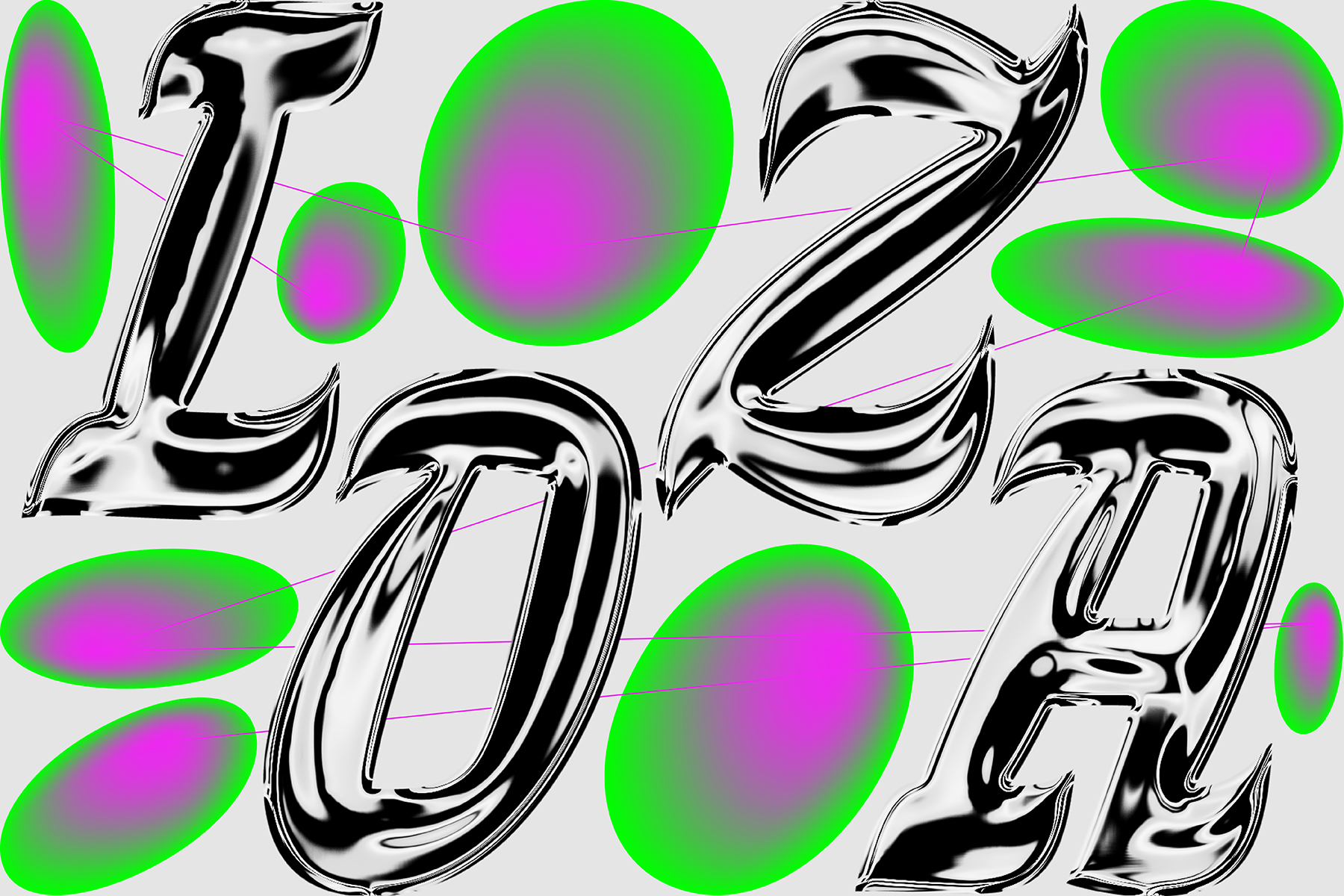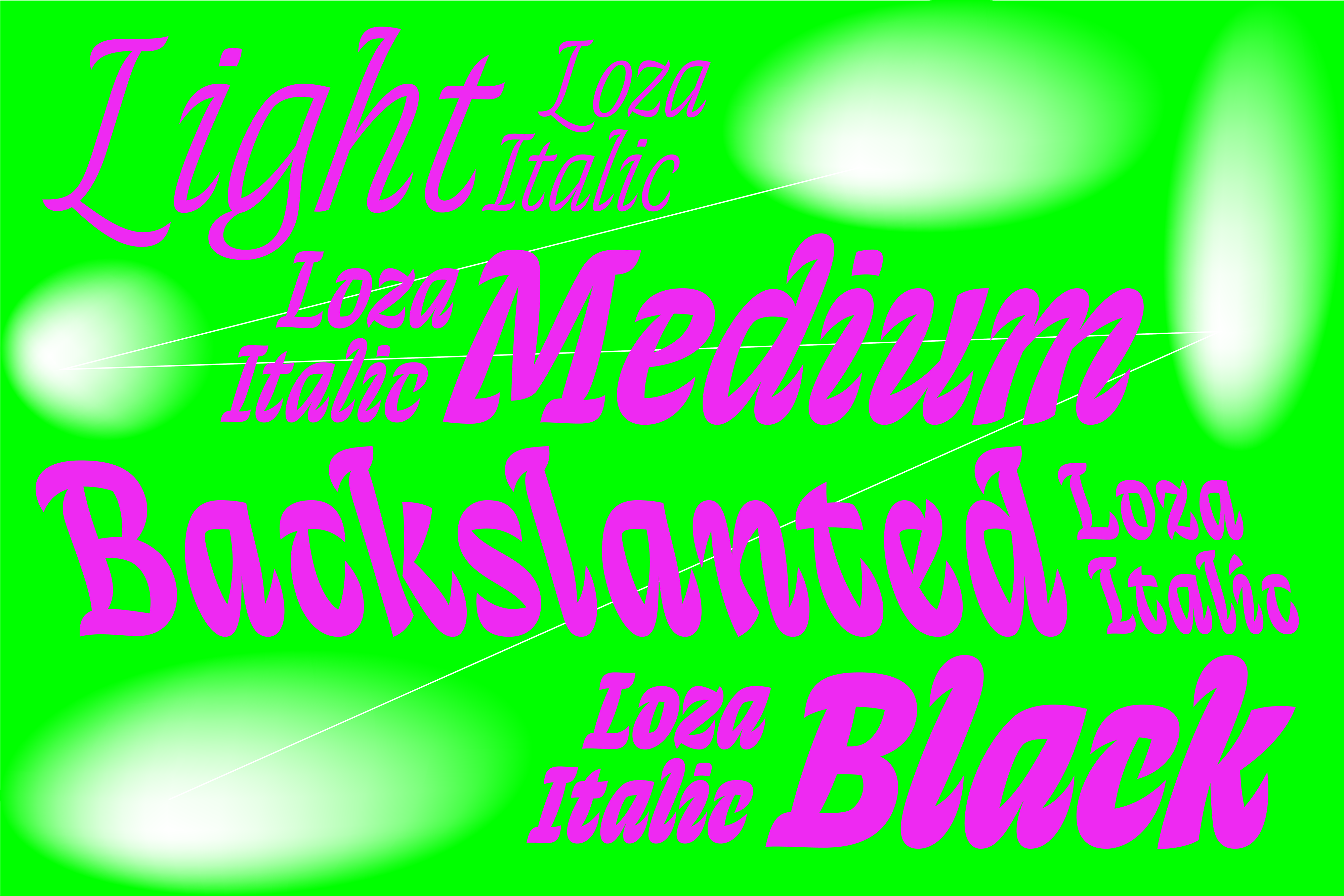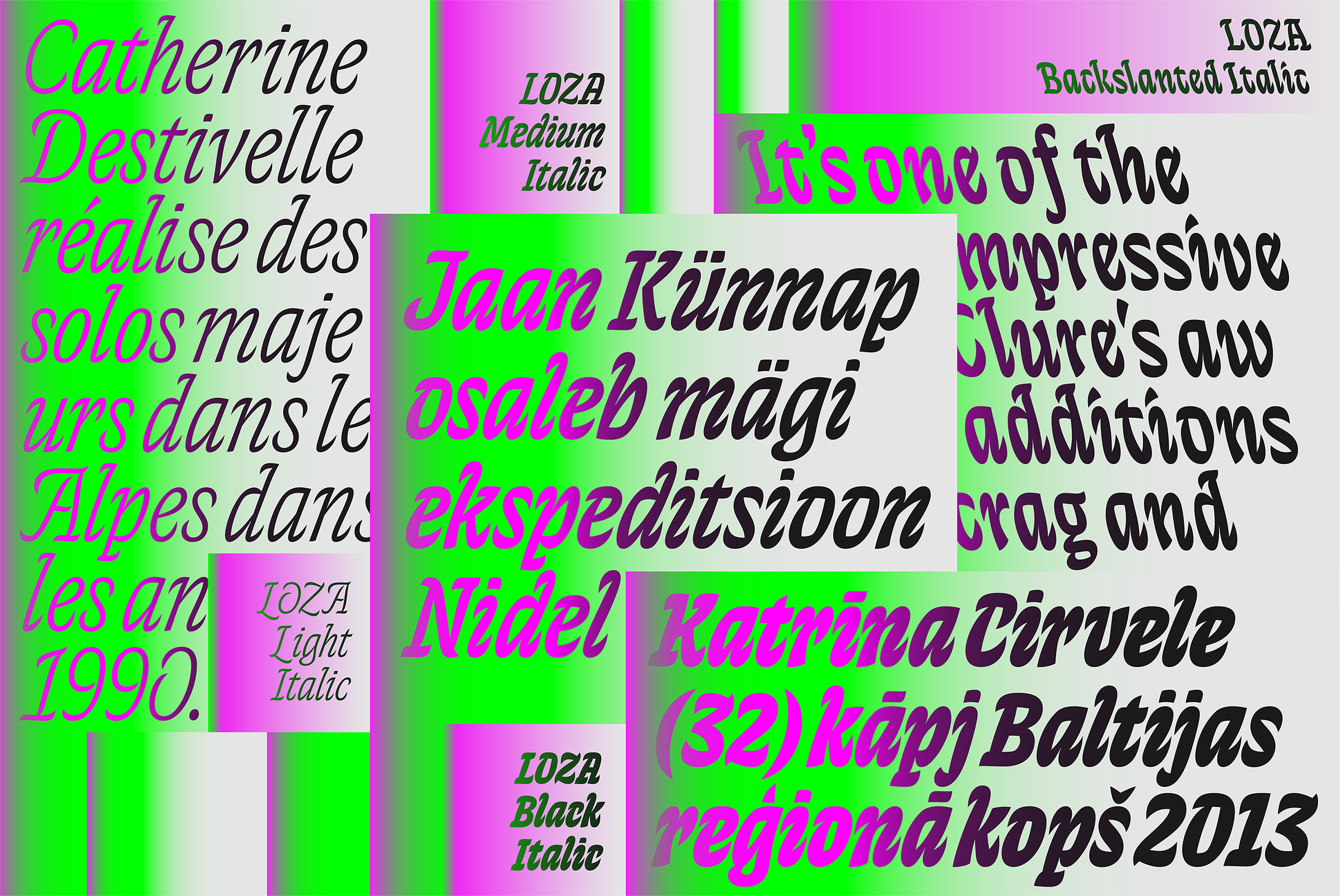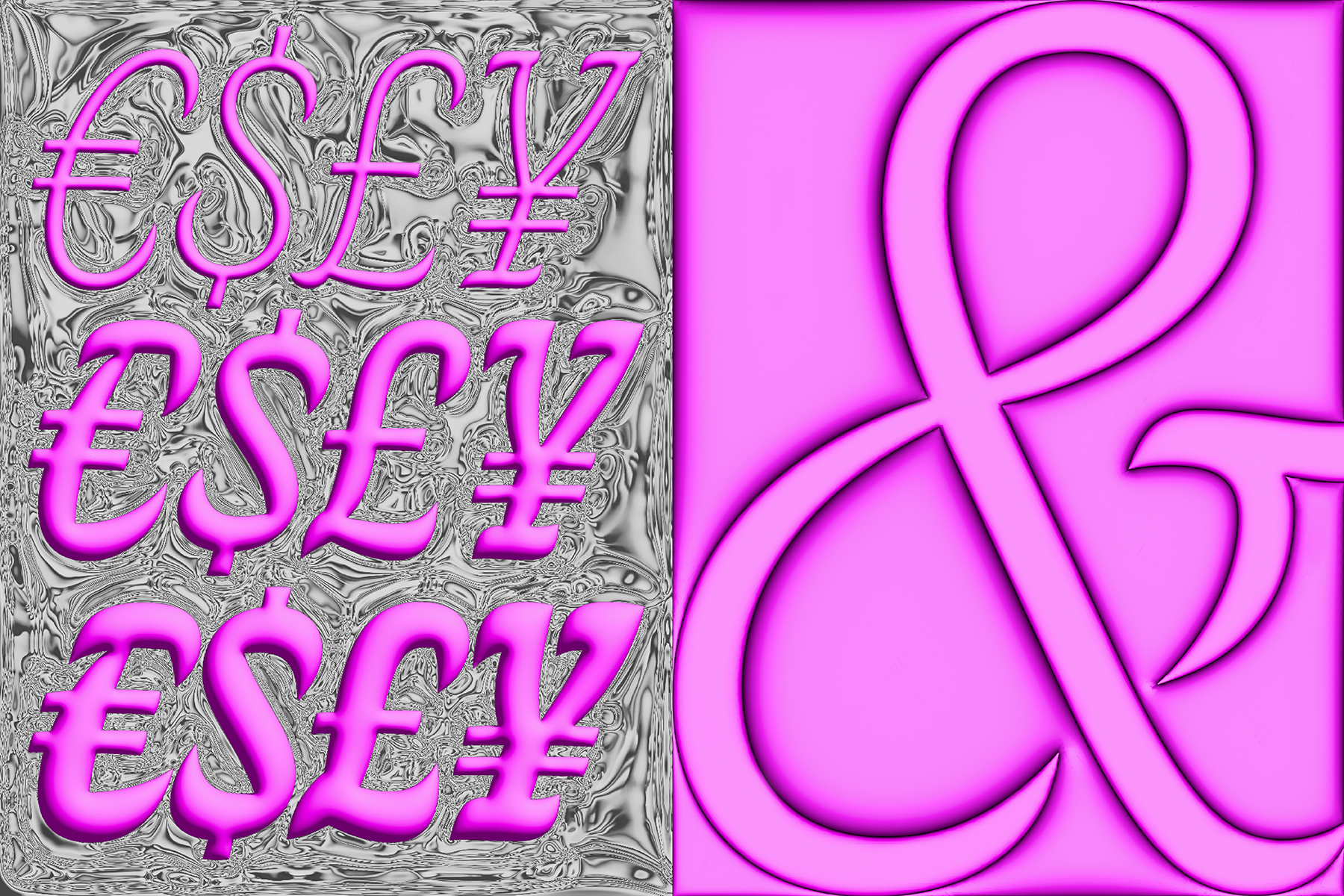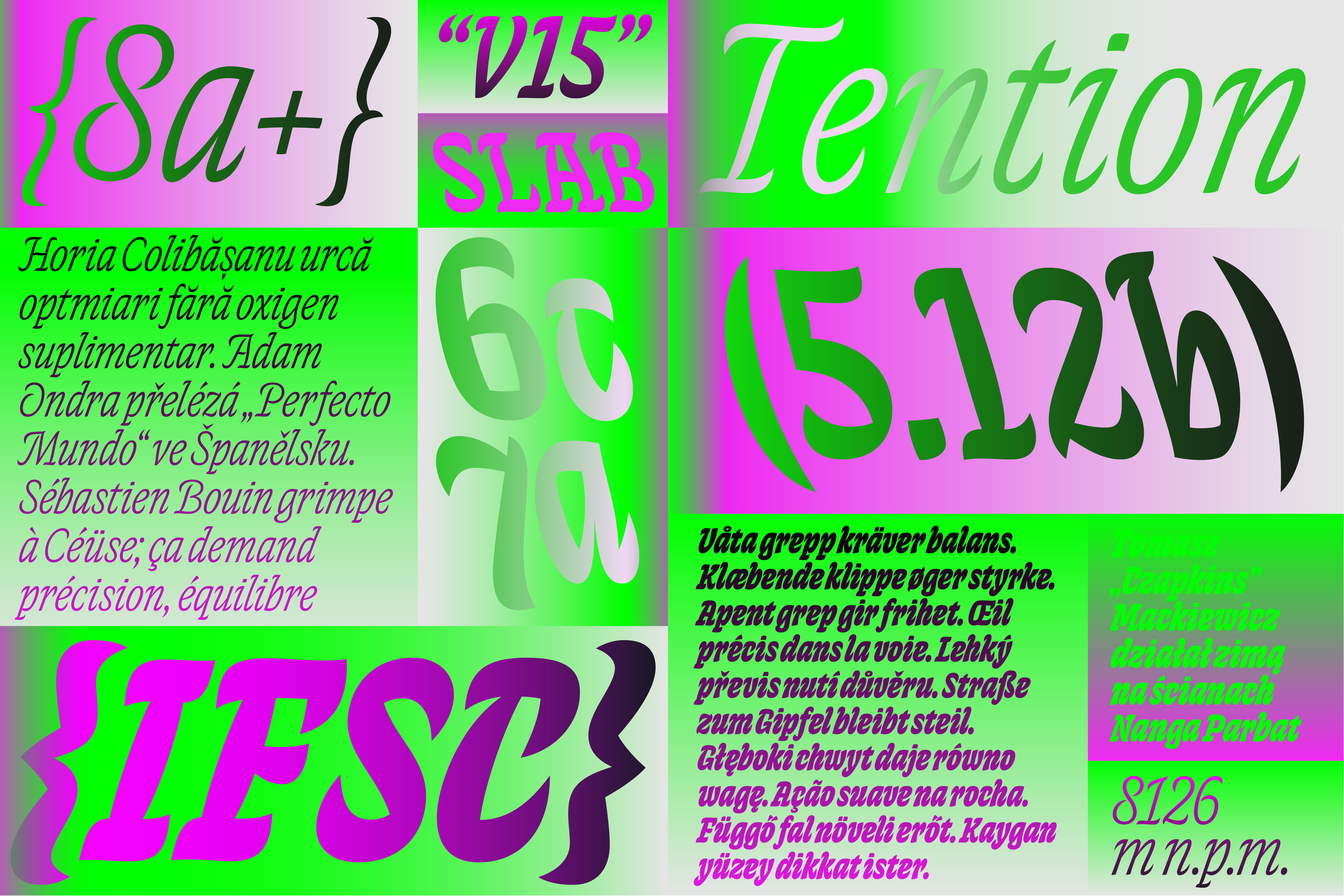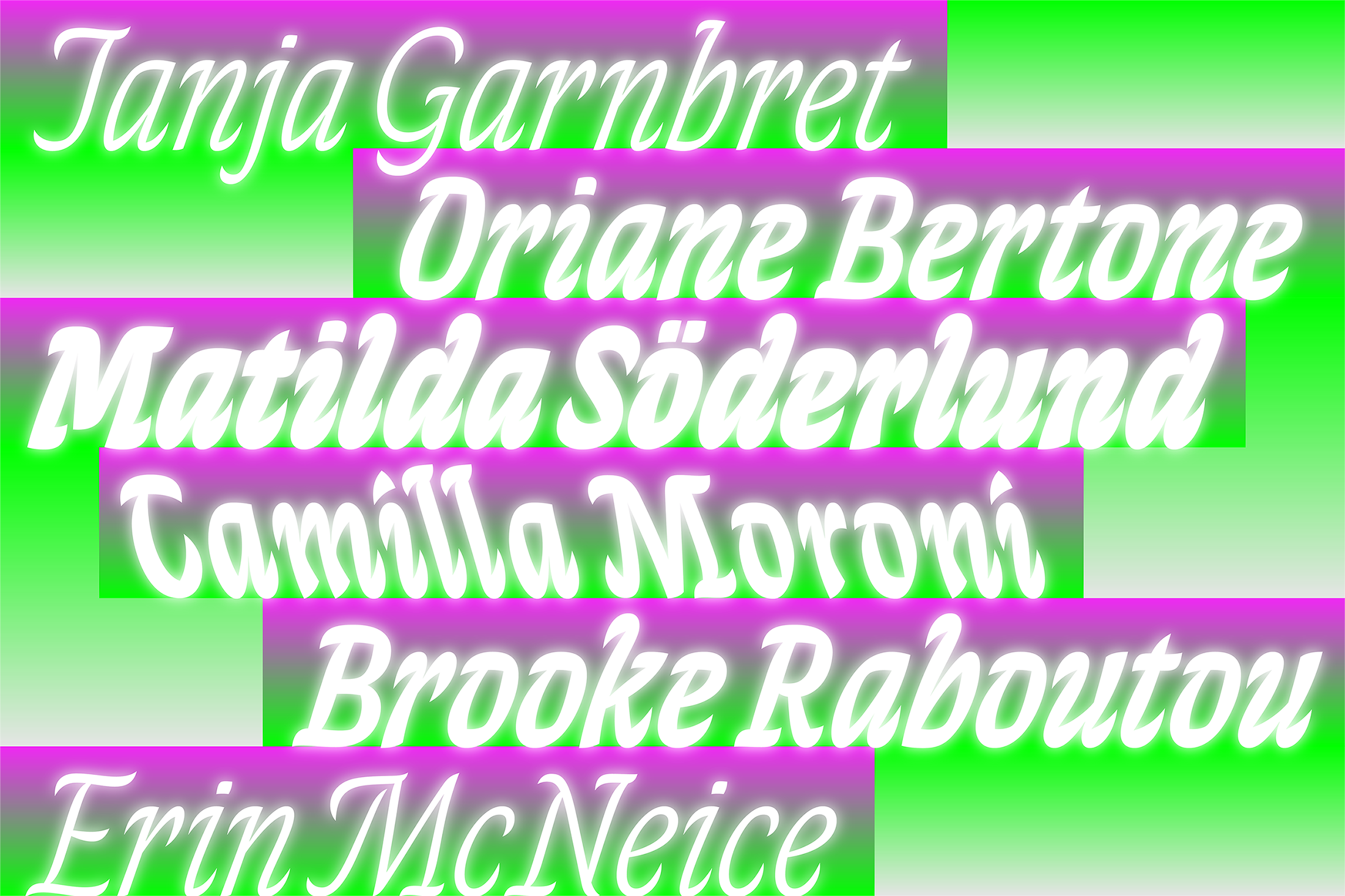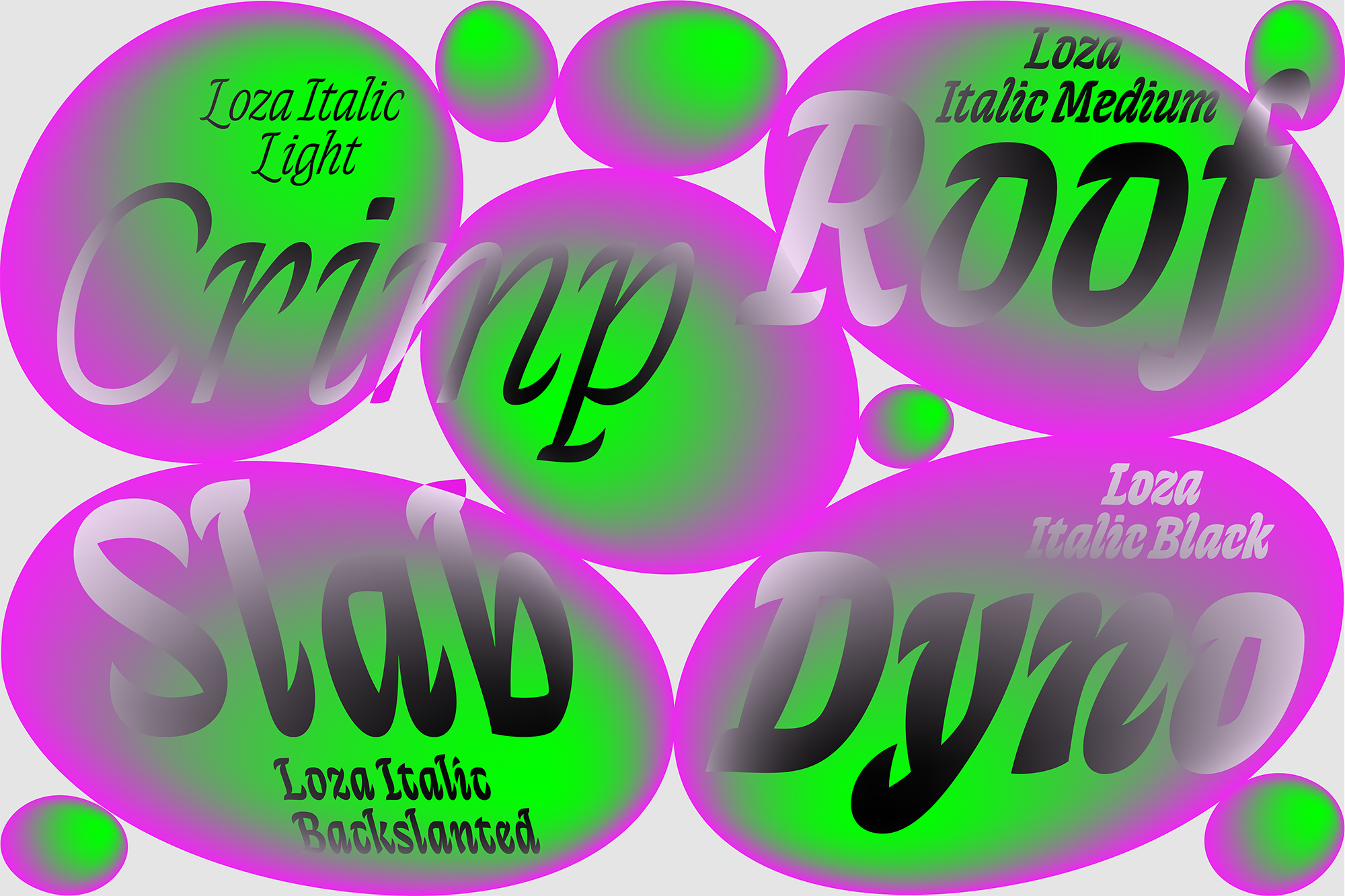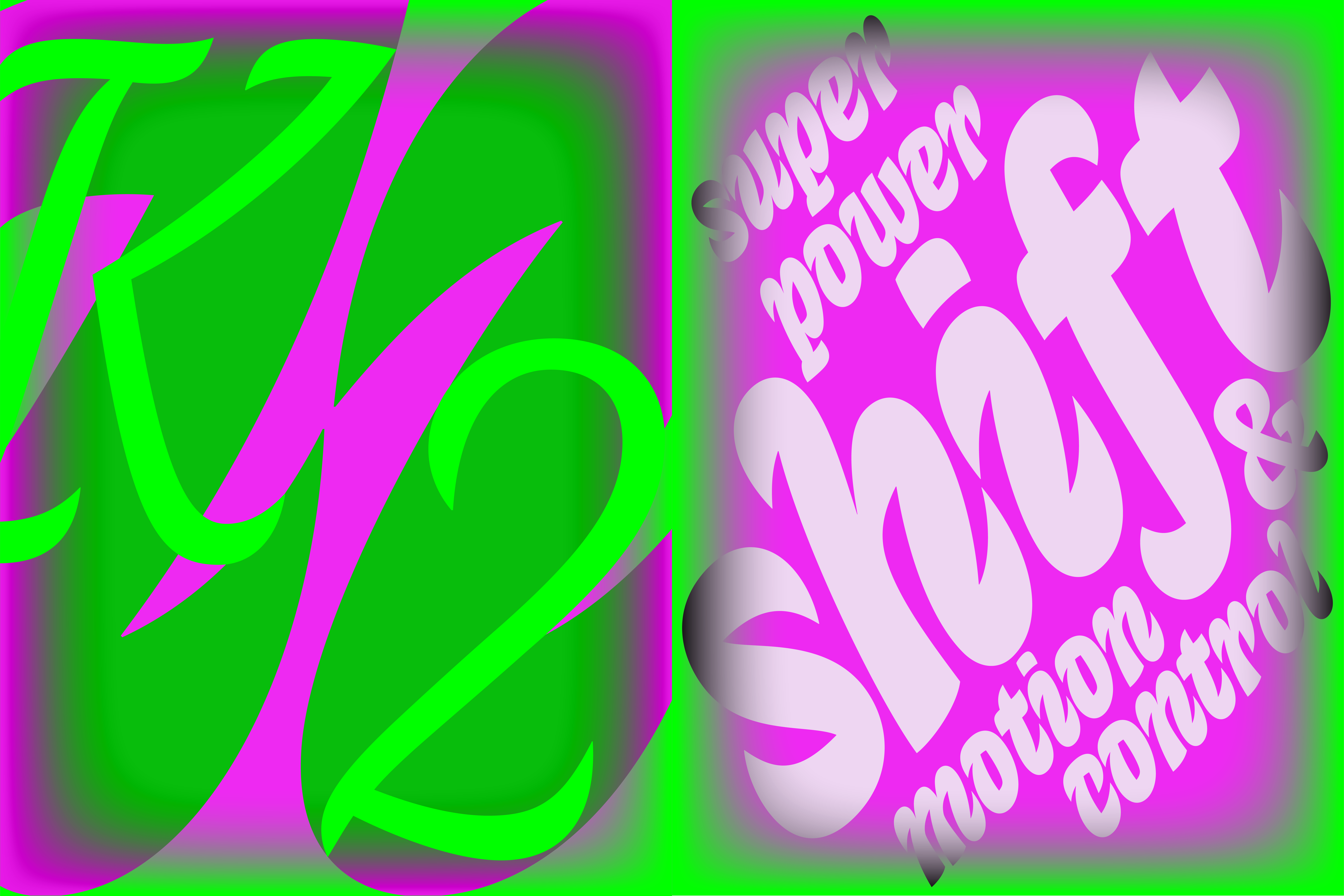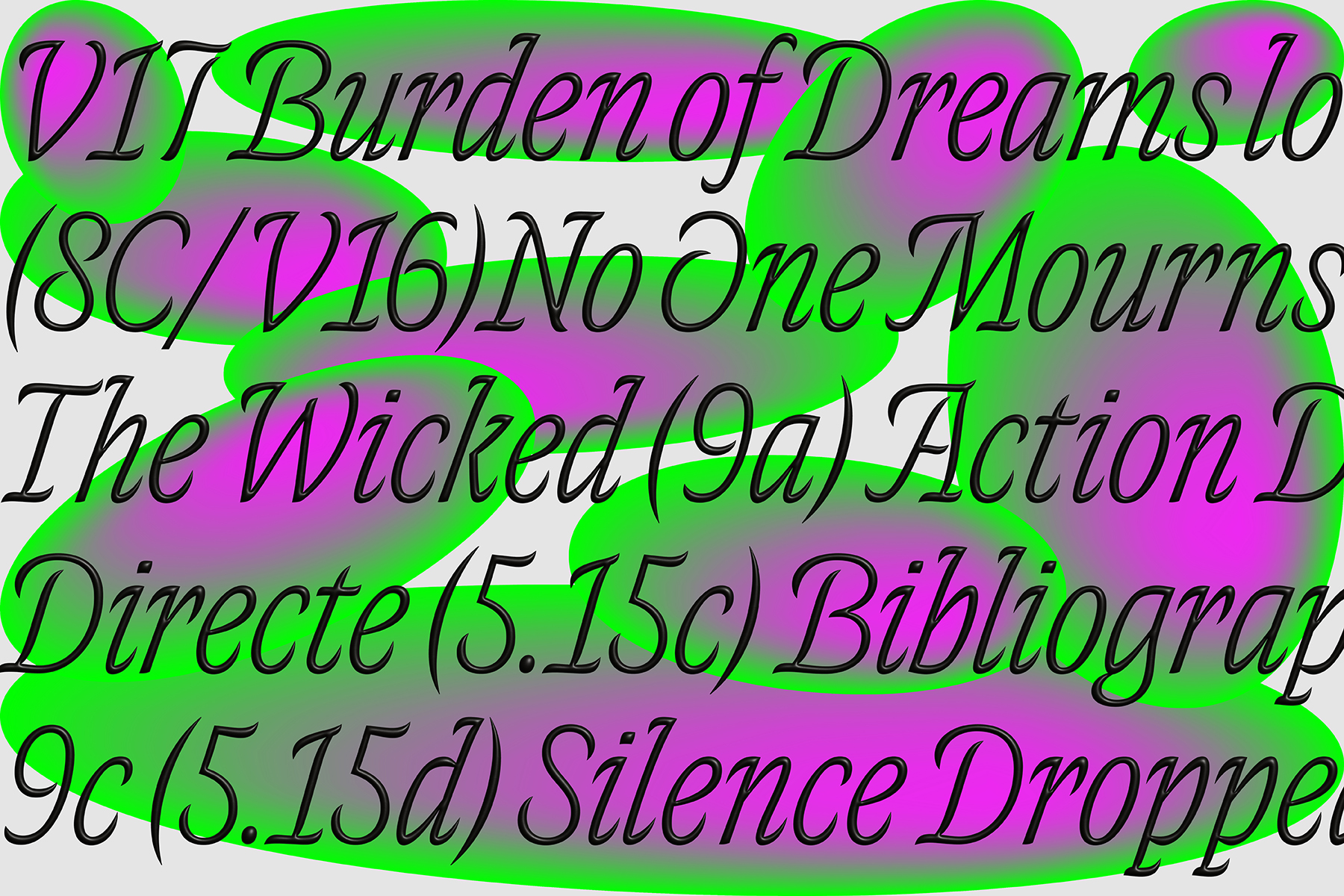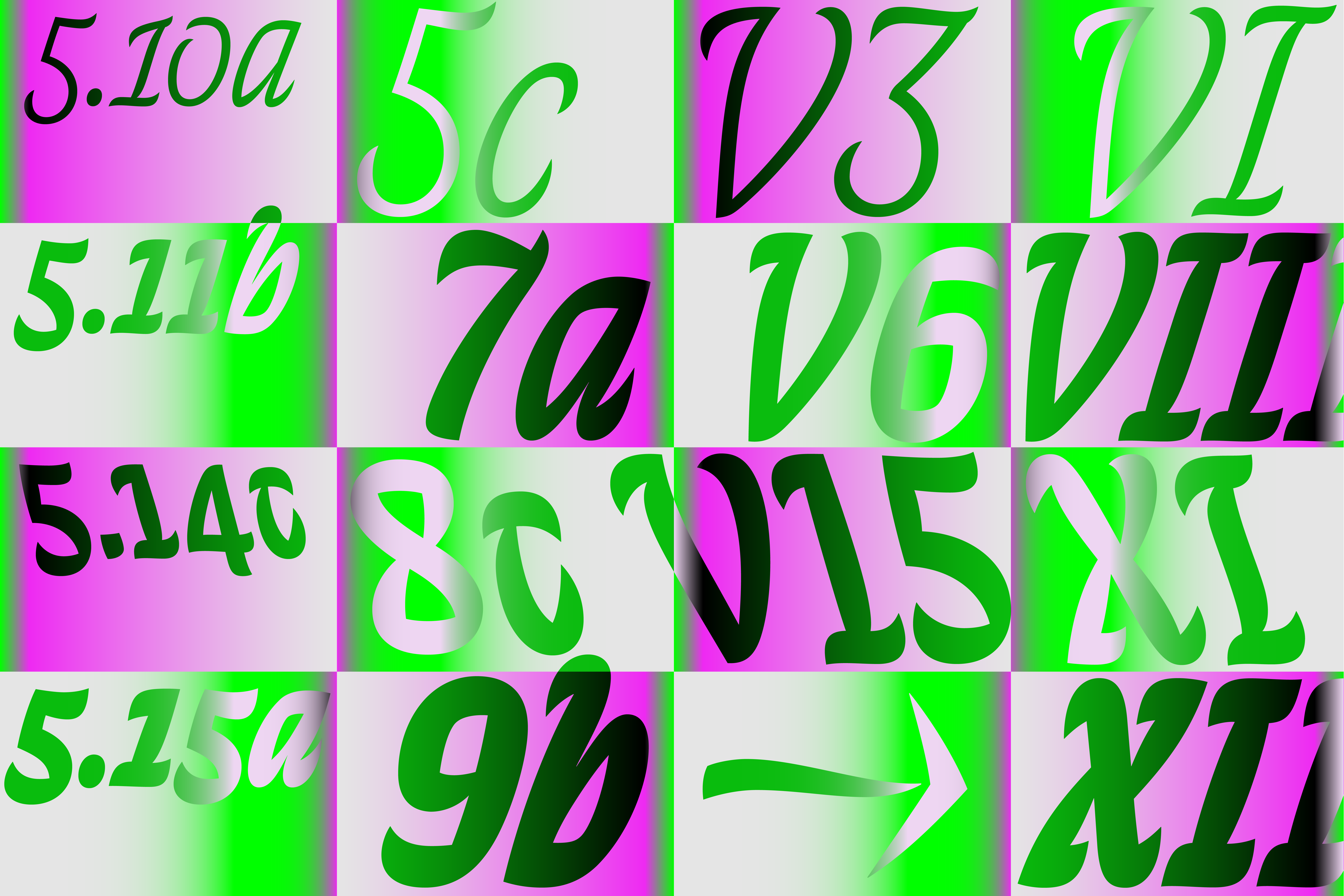
serif, other
weird
large
normal
light, medium, bold
medium
italic
About the typeface
Loza is an italic type family shaped by the mixture of historical models and calligraphic practice. Its lively rhythm and expressive forms create an energetic texture in continuous text. Originally started as an exploration of cursive construction, Loza developed into a collection of independent italic styles, each offering a distinct voice and working both individually and in combination.